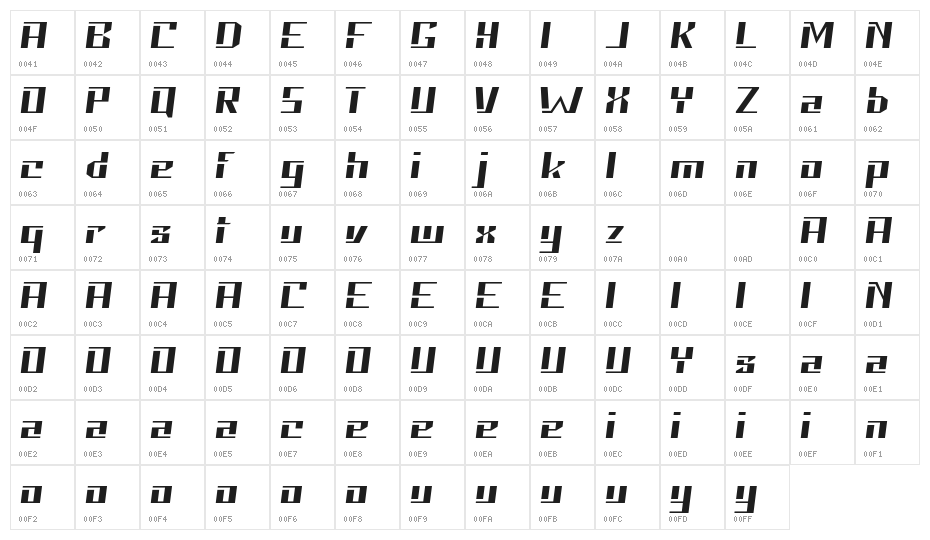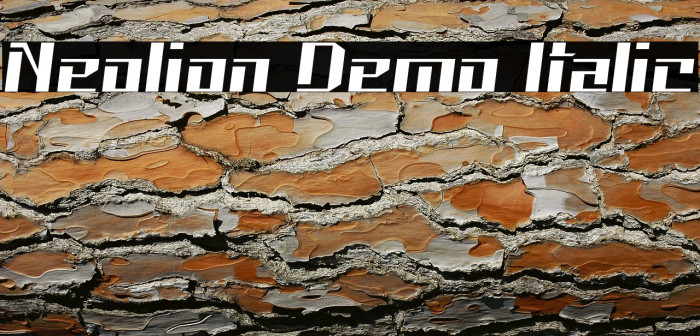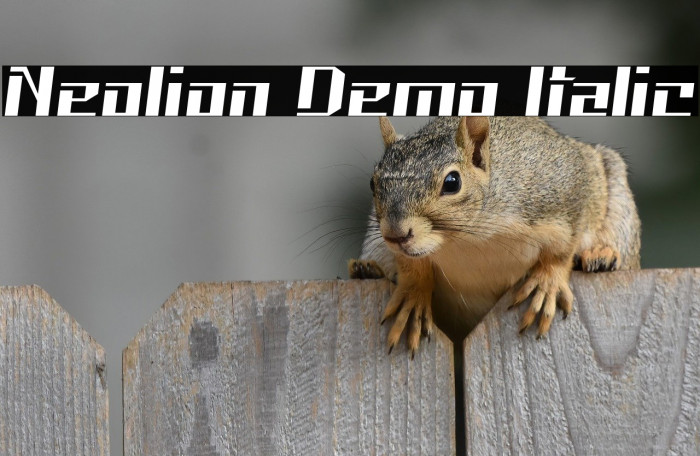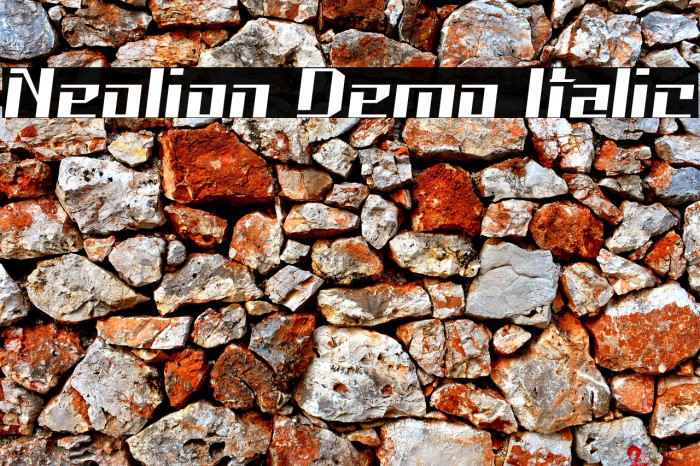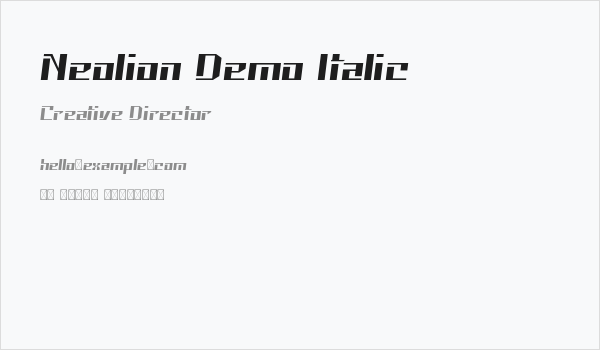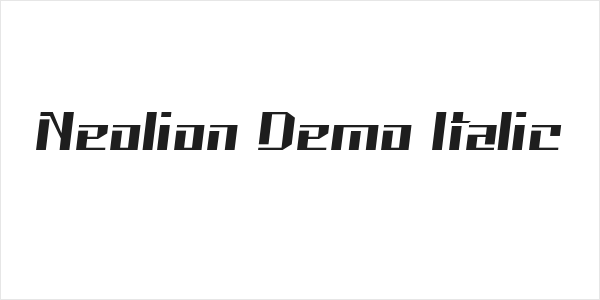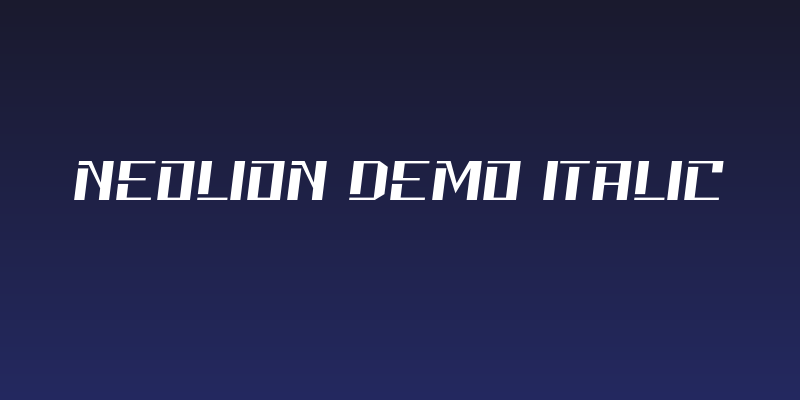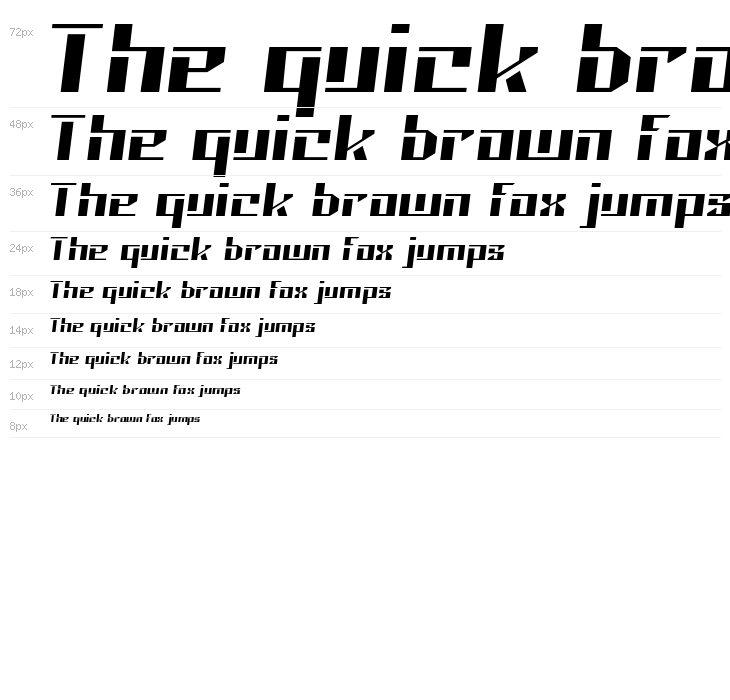
Neolion Demo Italic Font
Neolion Demo Italic Description
This font features a dynamic and futuristic design with sharp, angular lines and a distinct italic slant. The characters are bold and geometric, creating a sense of movement and energy. The uppercase and lowercase letters maintain a consistent style, with unique cuts and angles that give the font a modern and edgy appearance. The numbers and special characters follow the same design principles, ensuring uniformity across all glyphs. This font is ideal for projects that require a bold statement and a contemporary aesthetic.
| Proposed Projects | Ideal for branding, sports team logos, tech-related projects, and modern advertising campaigns. |